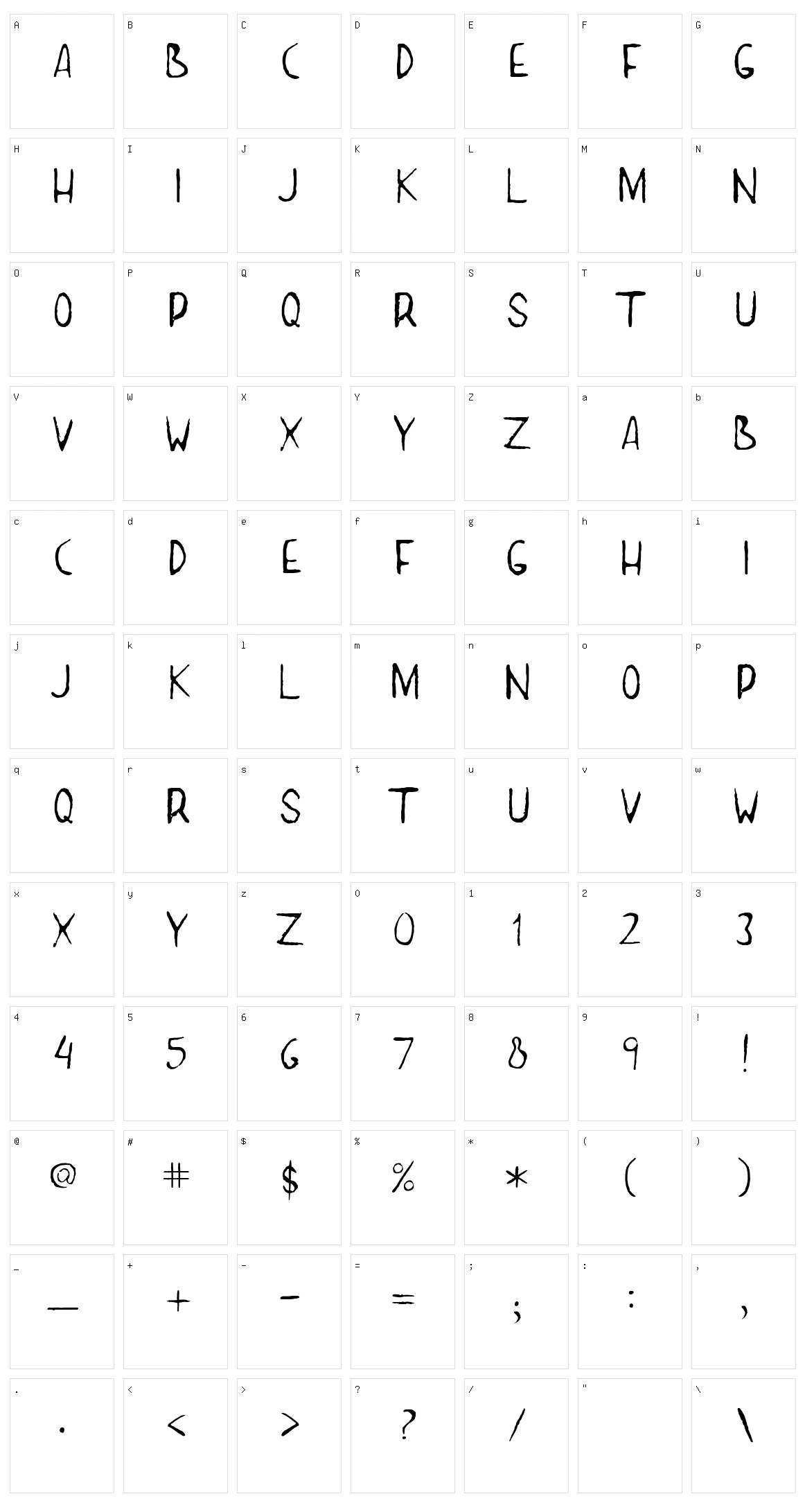
The free font Parana is carefully designed by Peque?o taller, showcasing a thoughtful balance of creativity and usability and falls under the Trash font style. When you download the ZIP file, it contains only 23.25 KB of font files, making it lightweight and quick to download. Please review the license details below to understand permitted usage and distribution rights. If license information is not available, we recommend using this font for personal projects only or contacting the author directly for commercial usage permissions.